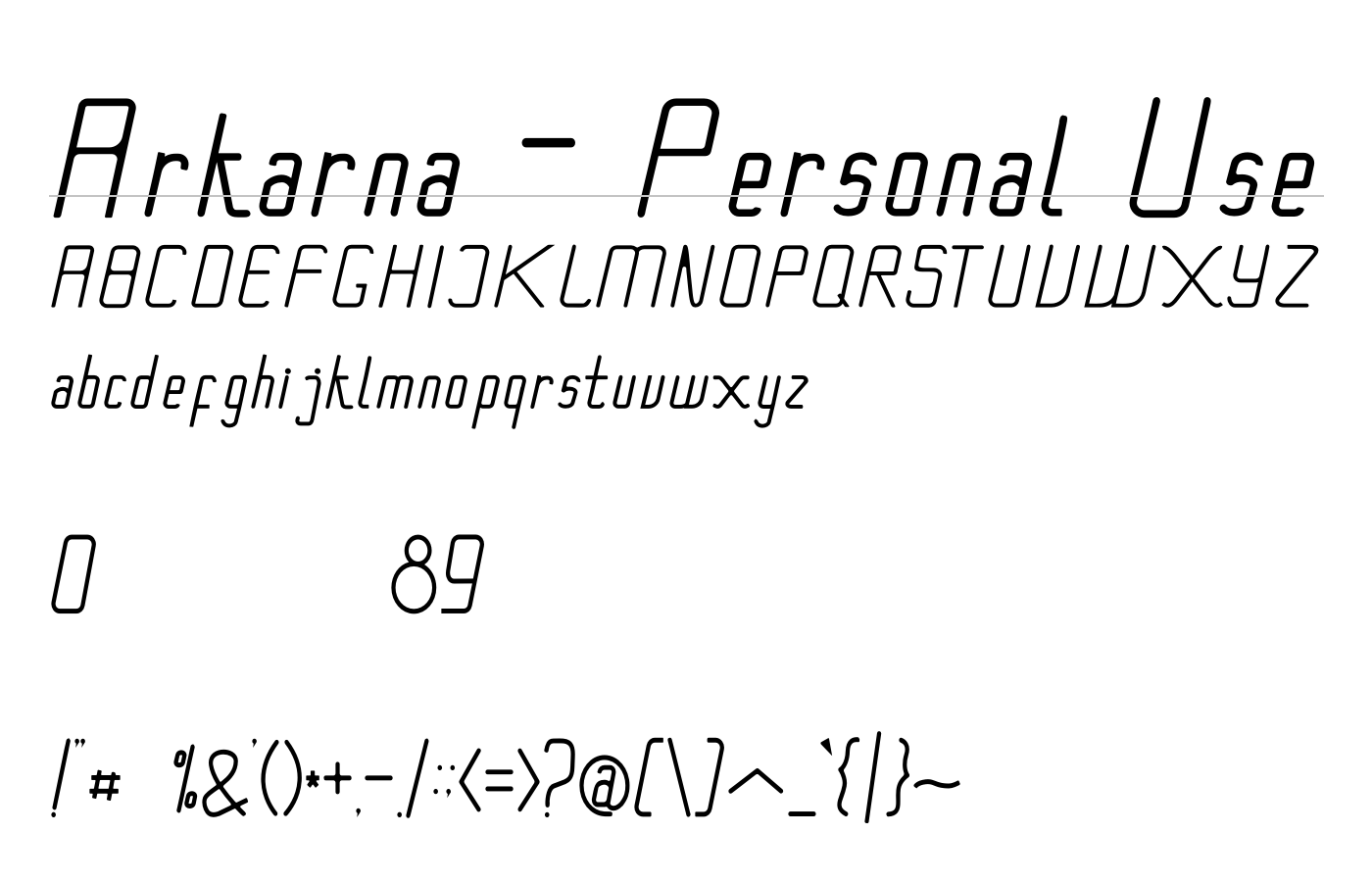
Arkarna is a sleek, narrow sans serif font with a futuristic and slightly technical feel, characterized by its geometric, rounded corners and tall, condensed letterforms. Its light weight and consistent stroke width make it clean and modern, ideal for tech branding, headlines, and editorial uses that require a minimalist yet distinctive style. This font works well where space is limited but a fresh, contemporary look is desired, bringing a sense of precision and forward-thinking design.
Arkarna - Personal Use Font